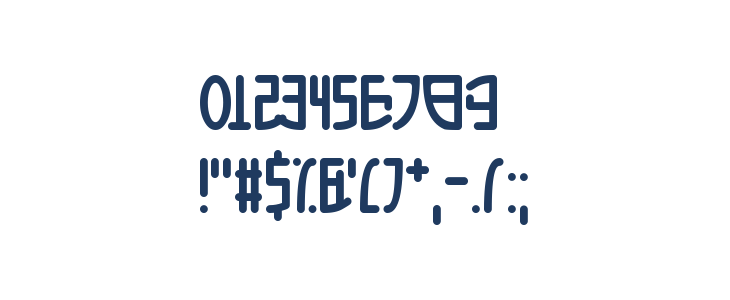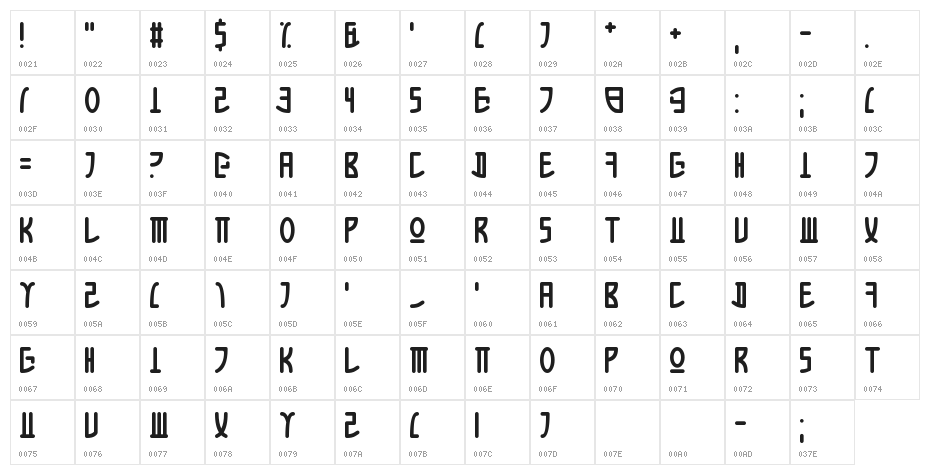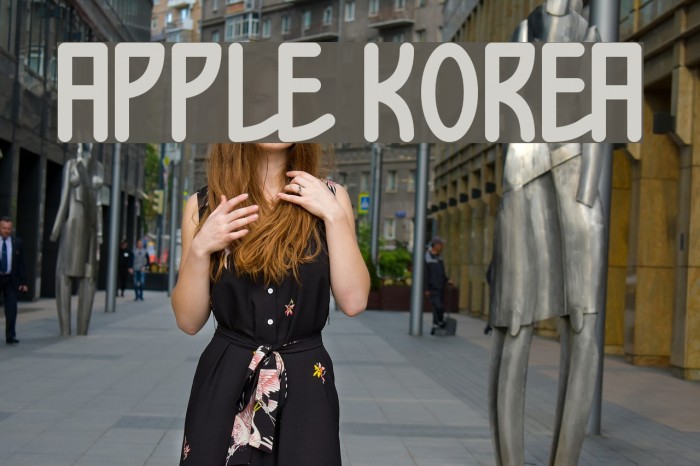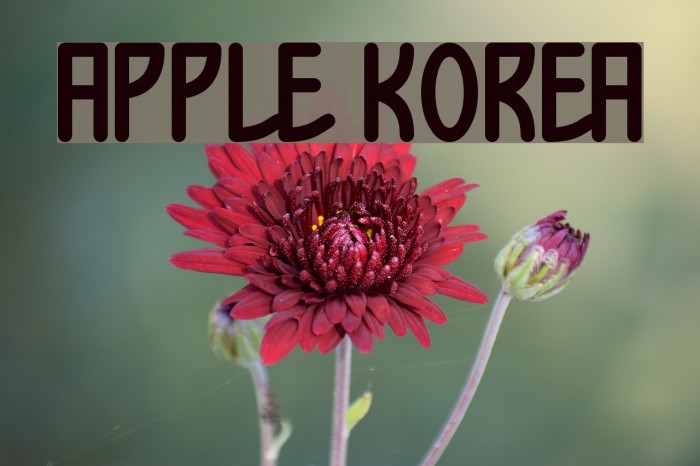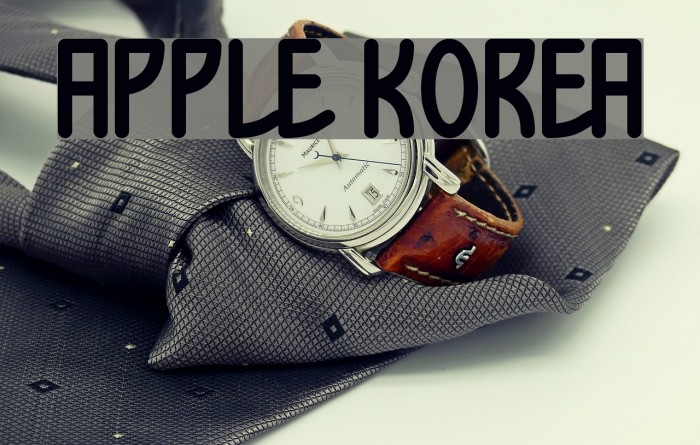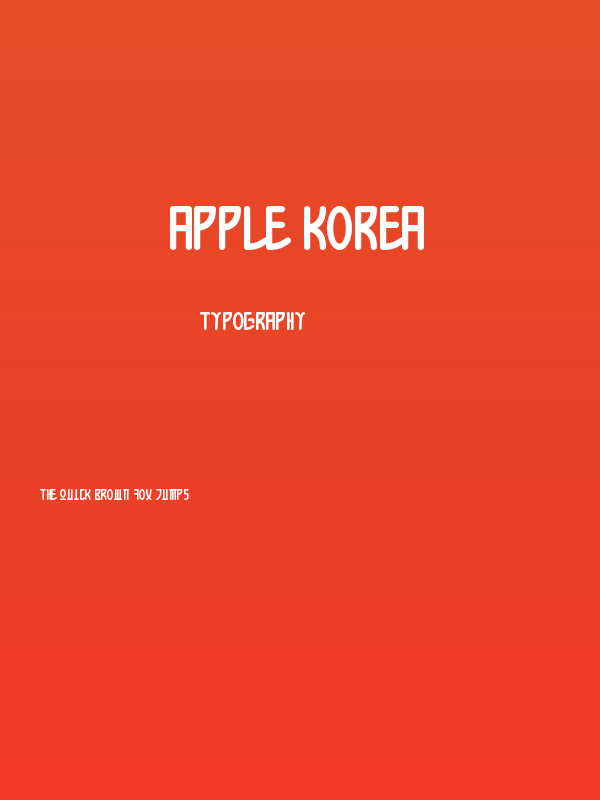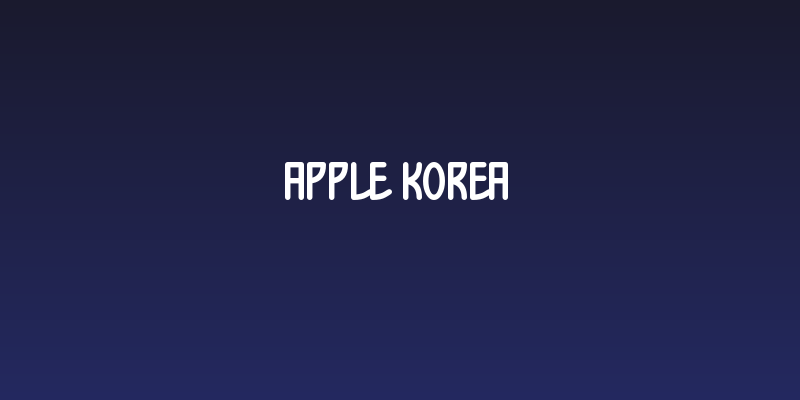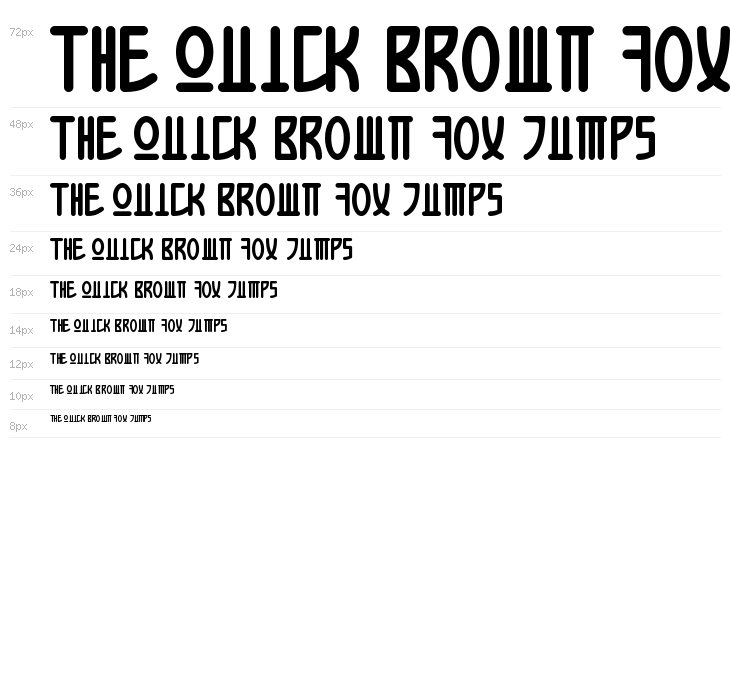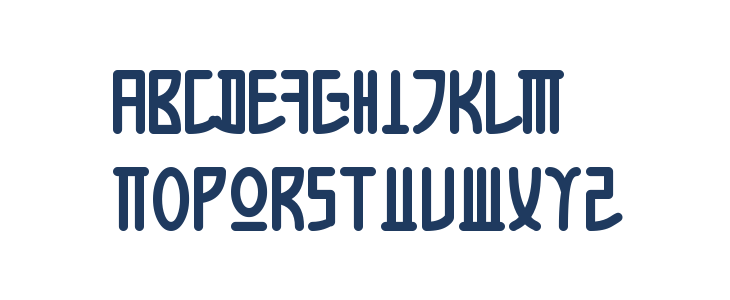
Apple Korea Font
Apple Korea Description
This font features a unique and bold design with a modern twist. The characters are constructed with thick, rounded strokes that give a sense of strength and stability. The uppercase and lowercase letters maintain a consistent style, with a slightly condensed appearance that enhances readability. The numbers and special characters follow the same design principles, ensuring a cohesive look across all elements. The font's distinct style makes it stand out, with a playful yet professional vibe that can be adapted to various creative projects.
| Proposed Projects | Ideal for branding, posters, headlines, and digital media where a strong visual impact is desired. |